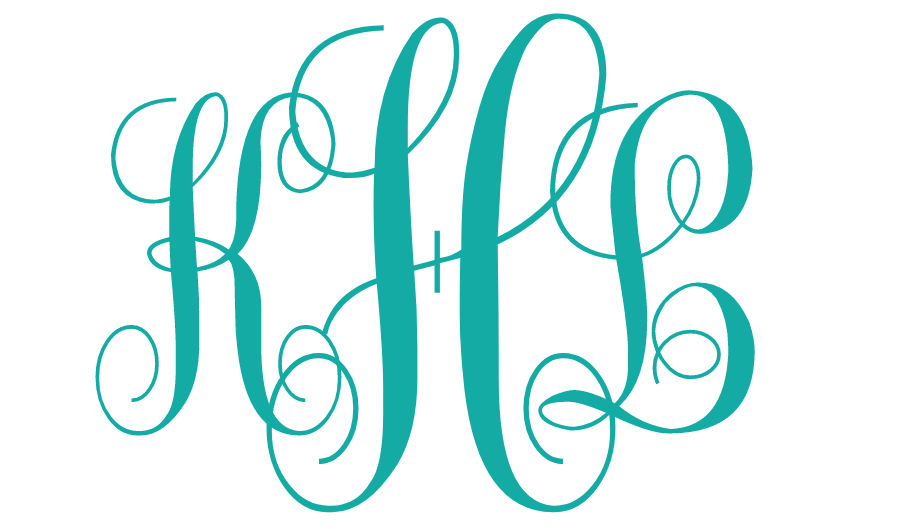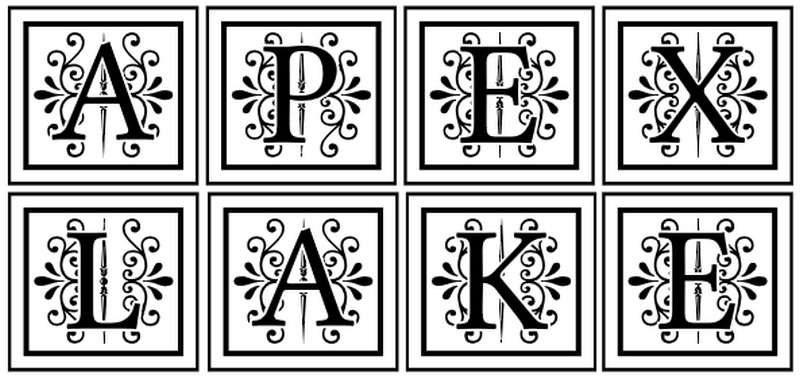
Free 74 What Is The Best Font For Monograms Cutting File SVG Cut File The font offers two styles: 21/07/2021 · you will definitely need a selection of great monogram fonts to accomplish the task. The font can also be used to design greeting cards, logos, and posters as well. 06/10/2021 · you can also use free dingbat fonts to create shapes, border, and outlines around your monogram letters.
Free 06/03/2021 · 25 best fonts for monograms from envato elements 1. Southern Style Monogram Tips If It Isn T Monogrammed Is It Even Yours The Southern Rose Monogram Gift SVG Cut File
Download 74 What Is The Best Font For Monograms Cutting File SVG Cut File for Silhouette, 21/07/2021 · you will definitely need a selection of great monogram fonts to accomplish the task. Kg flavor and frames by kimberly geswein. 06/03/2021 · 25 best fonts for monograms from envato elements 1.
Download 74 What Is The Best Font For Monograms Cutting File SVG Cut File for Cameo, Choose from classic and traditional fonts, to vintage, futuristic, and dramatic fonts that stand out from the crowd.
Download 74 What Is The Best Font For Monograms Cutting File SVG Cut File for Cricut, Vinyl and other cutting machine, This beautiful decorative font will look great on logos, invitations, branding, stationery, and more. 06/10/2021 · you can also use free dingbat fonts to create shapes, border, and outlines around your monogram letters. Please note that depending on the letters used in the monogram, some fonts may not … This is a unique and special source that can help you express the feeling of love for a loved one in …
21/07/2021 · you will definitely need a selection of great monogram fonts to accomplish the task. 06/10/2021 · you can also use free dingbat fonts to create shapes, border, and outlines around your monogram letters. Kg flavor and frames four by kimberly geswein. Kg flavor and frames by kimberly geswein.
One with clean brush strokes and one with slightly roughened brush strokes. Flanela monogram font (otf, ttf, eps) the flanela monogram font is a modern and clean monogram font. 21/07/2021 · you will definitely need a selection of great monogram fonts to accomplish the task. Please note that depending on the letters used in the monogram, some fonts may not …
The font offers two styles: 23/04/2021 · the heart deco monogram font is a duo of fun fonts with hearts with ornaments and crowns an elegant monogram to personalize gifts on valentine’s day! Choose from classic and traditional fonts, to vintage, futuristic, and dramatic fonts that stand out from the crowd. 30/07/2019 · malaurent is a true monogram font that you can use to design classical and luxury brand designs, like crafting monograms for wine bottles and drink glasses.
The font can also be used to design greeting cards, logos, and posters as well. Kg flavor and frames two by kimberly geswein. 23/04/2021 · the heart deco monogram font is a duo of fun fonts with hearts with ornaments and crowns an elegant monogram to personalize gifts on valentine’s day! Here are a few free fonts with great frames for monograms.
18/06/2020 · matilna samuela is a stylish cursive monogram font that's an excellent choice when you want to bring a more personal style to your monogram initials or monogram logo. 06/03/2021 · 25 best fonts for monograms from envato elements 1. 23/04/2021 · the heart deco monogram font is a duo of fun fonts with hearts with ornaments and crowns an elegant monogram to personalize gifts on valentine’s day! Kg flavor and frames two by kimberly geswein.
30/07/2019 · malaurent is a true monogram font that you can use to design classical and luxury brand designs, like crafting monograms for wine bottles and drink glasses. 21/07/2021 · you will definitely need a selection of great monogram fonts to accomplish the task. Kg flavor and frames two by kimberly geswein. One with clean brush strokes and one with slightly roughened brush strokes.
23/04/2021 · the heart deco monogram font is a duo of fun fonts with hearts with ornaments and crowns an elegant monogram to personalize gifts on valentine’s day! 30/07/2019 · malaurent is a true monogram font that you can use to design classical and luxury brand designs, like crafting monograms for wine bottles and drink glasses. Kg flavor and frames by kimberly geswein. Please note that depending on the letters used in the monogram, some fonts may not …
5 74 What Is The Best Font For Monograms Cutting File SVG Cut File
Choose from classic and traditional fonts, to vintage, futuristic, and dramatic fonts that stand out from the crowd. Please note that depending on the letters used in the monogram, some fonts may not …
23/04/2021 · the heart deco monogram font is a duo of fun fonts with hearts with ornaments and crowns an elegant monogram to personalize gifts on valentine’s day! Kg flavor and frames by kimberly geswein.
This beautiful decorative font will look great on logos, invitations, branding, stationery, and more. 06/10/2021 · you can also use free dingbat fonts to create shapes, border, and outlines around your monogram letters.
Flanela monogram font (otf, ttf, eps) the flanela monogram font is a modern and clean monogram font. The font can also be used to design greeting cards, logos, and posters as well.
One with clean brush strokes and one with slightly roughened brush strokes. Here we have collected several different options that can satisfy a different audience and suit all occasions.
10 74 What Is The Best Font For Monograms Cutting File SVG Cut File
Please note that depending on the letters used in the monogram, some fonts may not … The font offers two styles: This is a unique and special source that can help you express the feeling of love for a loved one in … Kg flavor and frames by kimberly geswein.
The font can also be used to design greeting cards, logos, and posters as well. 18/06/2020 · matilna samuela is a stylish cursive monogram font that's an excellent choice when you want to bring a more personal style to your monogram initials or monogram logo. 06/03/2021 · 25 best fonts for monograms from envato elements 1. 21/07/2021 · you will definitely need a selection of great monogram fonts to accomplish the task.
Kg flavor and frames four by kimberly geswein. 06/03/2021 · 25 best fonts for monograms from envato elements 1. Kg flavor and frames by kimberly geswein. 30/07/2019 · malaurent is a true monogram font that you can use to design classical and luxury brand designs, like crafting monograms for wine bottles and drink glasses.
06/03/2021 · 25 best fonts for monograms from envato elements 1. 23/04/2021 · the heart deco monogram font is a duo of fun fonts with hearts with ornaments and crowns an elegant monogram to personalize gifts on valentine’s day! Kg flavor and frames two by kimberly geswein. One with clean brush strokes and one with slightly roughened brush strokes.
Kg flavor and frames two by kimberly geswein. This is a unique and special source that can help you express the feeling of love for a loved one in … Kg flavor and frames by kimberly geswein. 18/06/2020 · matilna samuela is a stylish cursive monogram font that's an excellent choice when you want to bring a more personal style to your monogram initials or monogram logo.
One with clean brush strokes and one with slightly roughened brush strokes. 23/04/2021 · the heart deco monogram font is a duo of fun fonts with hearts with ornaments and crowns an elegant monogram to personalize gifts on valentine’s day! The font offers two styles: Here are a few free fonts with great frames for monograms.
30/07/2019 · malaurent is a true monogram font that you can use to design classical and luxury brand designs, like crafting monograms for wine bottles and drink glasses. 06/03/2021 · 25 best fonts for monograms from envato elements 1. Kg flavor and frames two by kimberly geswein. Flanela monogram font (otf, ttf, eps) the flanela monogram font is a modern and clean monogram font.
The font offers two styles: Here we have collected several different options that can satisfy a different audience and suit all occasions. One with clean brush strokes and one with slightly roughened brush strokes. Here are a few free fonts with great frames for monograms.
One with clean brush strokes and one with slightly roughened brush strokes. Here we have collected several different options that can satisfy a different audience and suit all occasions. This is a unique and special source that can help you express the feeling of love for a loved one in … Kg flavor and frames four by kimberly geswein.
21/07/2021 · you will definitely need a selection of great monogram fonts to accomplish the task. Here we have collected several different options that can satisfy a different audience and suit all occasions. Here are a few free fonts with great frames for monograms. Kg flavor and frames two by kimberly geswein.